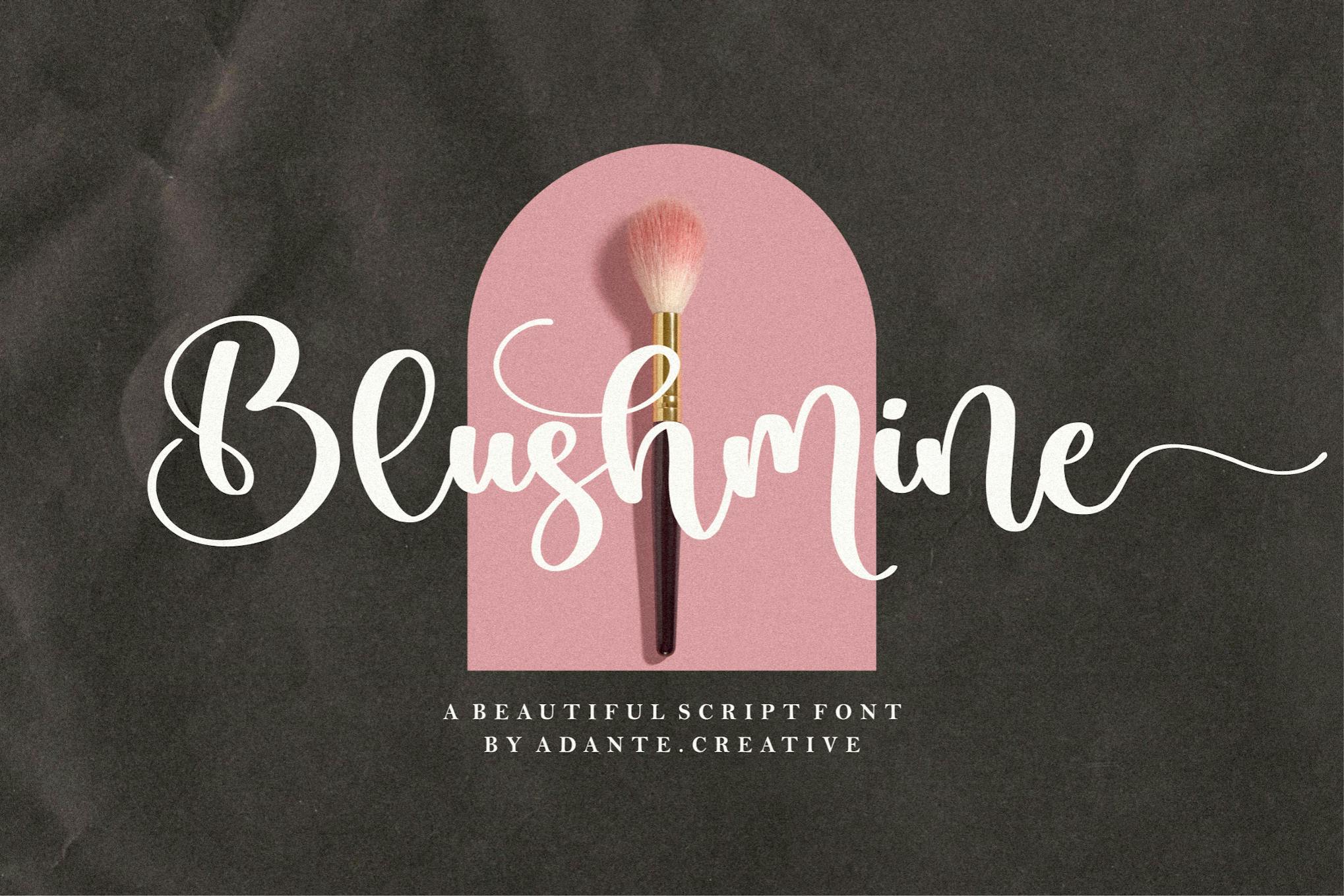
AC - Blushmine Font
Blushmine is a Beautiful Script font, are used in various personal projects to express creativity, sentiment, and individuality. They add a personal touch to the project, making it more meaningful and special. This font includes OTF, TTF & Woff Software that you can use to use this font: Adobe Illustrator, Adobe Photoshop, Microsoft Word, Corel Draw, And Inkscape, etc.